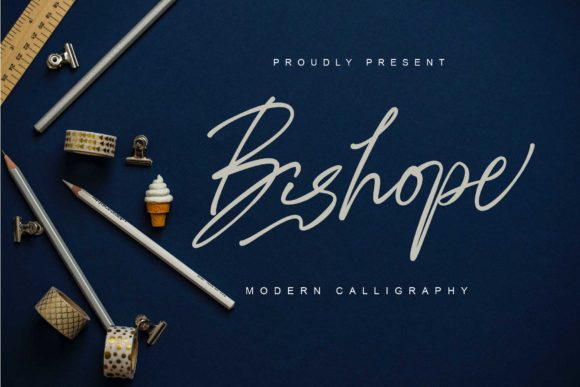
The Elegance of Bishope Font: A Designer’s New Best Friend
I still remember the time I was working on a wedding invitation project, and my client specifically asked for a font that exuded elegance and sophistication. I scoured the internet, tried out countless fonts, but nothing seemed to fit the bill. That was until I stumbled upon Bishope Font. This beautiful, handwritten font has been a game-changer for me, and I’m excited to share my experience with you.
A Personal Review of Bishope Font
- ✨ Unique and elegant handwritten style that adds a touch of sophistication to any design
- ✅ Highly versatile and can be used for a variety of projects, from wedding invitations to logos
- 💕 Beautifully crafted letters and glyphs that make your designs stand out
- 📚 Extensive language support and OpenType features for added flexibility
While Bishope Font is an excellent choice, there are a few things to keep in mind:
- 🤔 Some users may find the font a bit too ornate for certain projects, such as body text or lengthy documents
- ⚠️ Limited availability of stylistic alternates, which may not offer as much flexibility for some designers
The Story Behind Bishope Font
Bishope Font was designed with the intention of creating a beautiful, elegant script that would add a touch of sophistication to any design. The designer drew inspiration from classic calligraphy and modern typography, resulting in a font that is both timeless and trendy.
Q: What type of projects is Bishope Font best suited for?
A: Bishope Font is ideal for projects that require a touch of elegance and sophistication, such as wedding invitations, thank you cards, and logos.